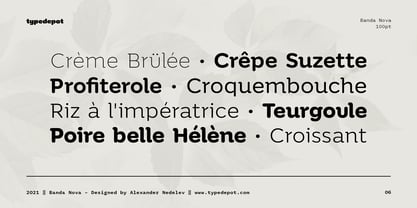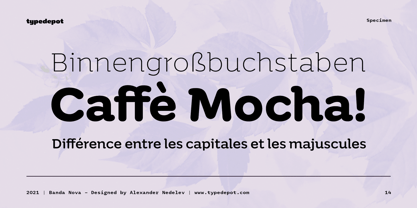
Banda Nova
by Typedepot
Hold on to your hats, there’s a new orchestra in town - the Banda Nova!
Banda Nova is a crowd pleaser, feeling equally at home on the retail shelf as well as on the cover of your favorite magazine. The 7 weights included in the package offer a wide variety of styles, with delicate and elegantly thin weights morphing into cute, bulbous giants sure to bring a smile to anyone’s face. This versatility makes Banda suitable for virtually any design project, including logos, headlines, covers, packaging and more.
We took the time to reimagine Banda, removing traces of our youthful naivety and expanding on everything that made it so good in the first place.
Our team is proud to welcome back one of our earliest typefaces in a refreshed and much-improved rendition/adaptation, now featuring full Cyrillic support and almost twice the number of original characters. Are you ready to take center stage again?
Designers: Alexander Nedelev
Publisher: Typedepot
Foundry: Typedepot
Design Owner: Typedepot
About Typedepot
Typedepot co-founders Alexander Nedelev and Veronika Slavova say, “In the beginning, Typedepot was a side project, nothing serious – just experimenting with letterforms. Then, in a moment it just felt more right to do this than anything else.” Based in Sofia, Bulgaria, the duo first came upon type design while working as graphic designers in advertising. “We had absolutely no background in type design,” Alexander says, “but we had this project, a logotype for a small company, which we developed to become the Glide typeface.” Two years later they rented an office, took the plunge and started designing type full time. “Now it’s the thing we do and the thing we love to do.” So far they’ve seen great success with Best Seller Centrale Sans. The modern sans serif typeface was featured as one of MyFonts Most Popular Fonts of 2011 and was featured in our Rising Stars Newsletter that same year. The self-taught designers whose foundry started out as a way to experiment with type, say that their main focus is “to design original typefaces for retail and custom use.”